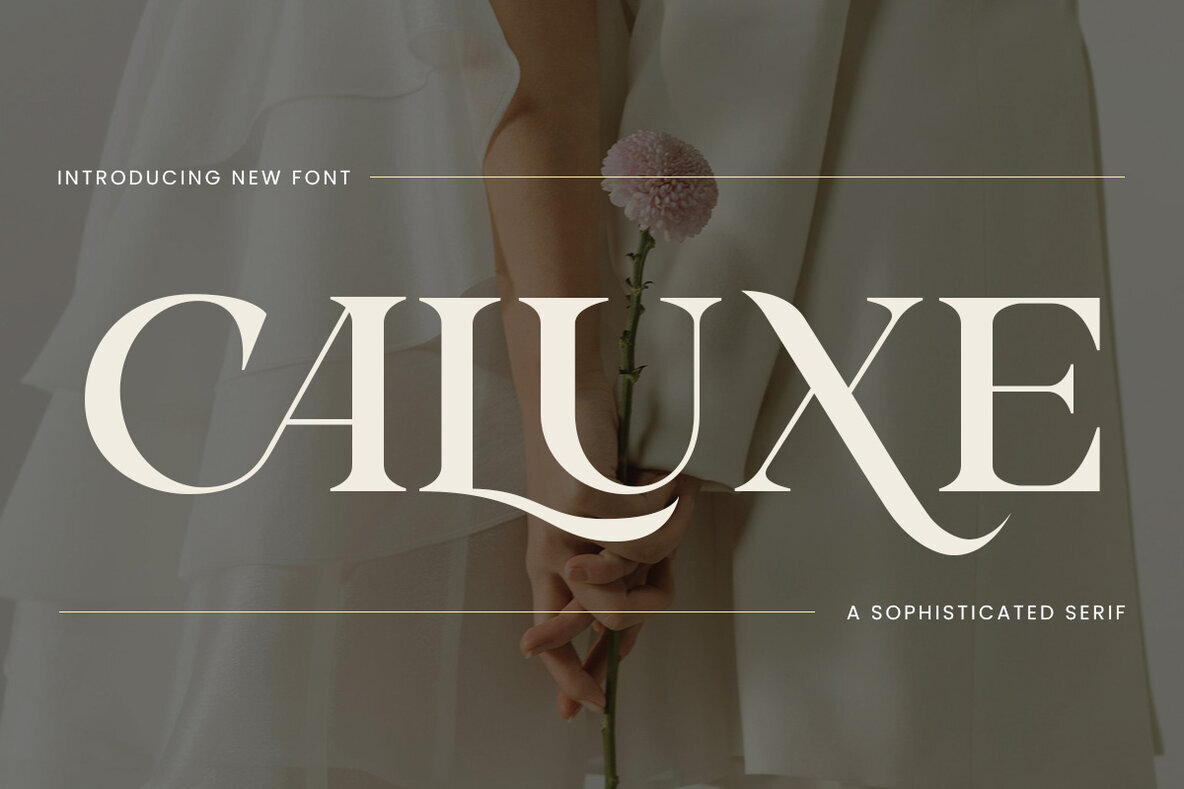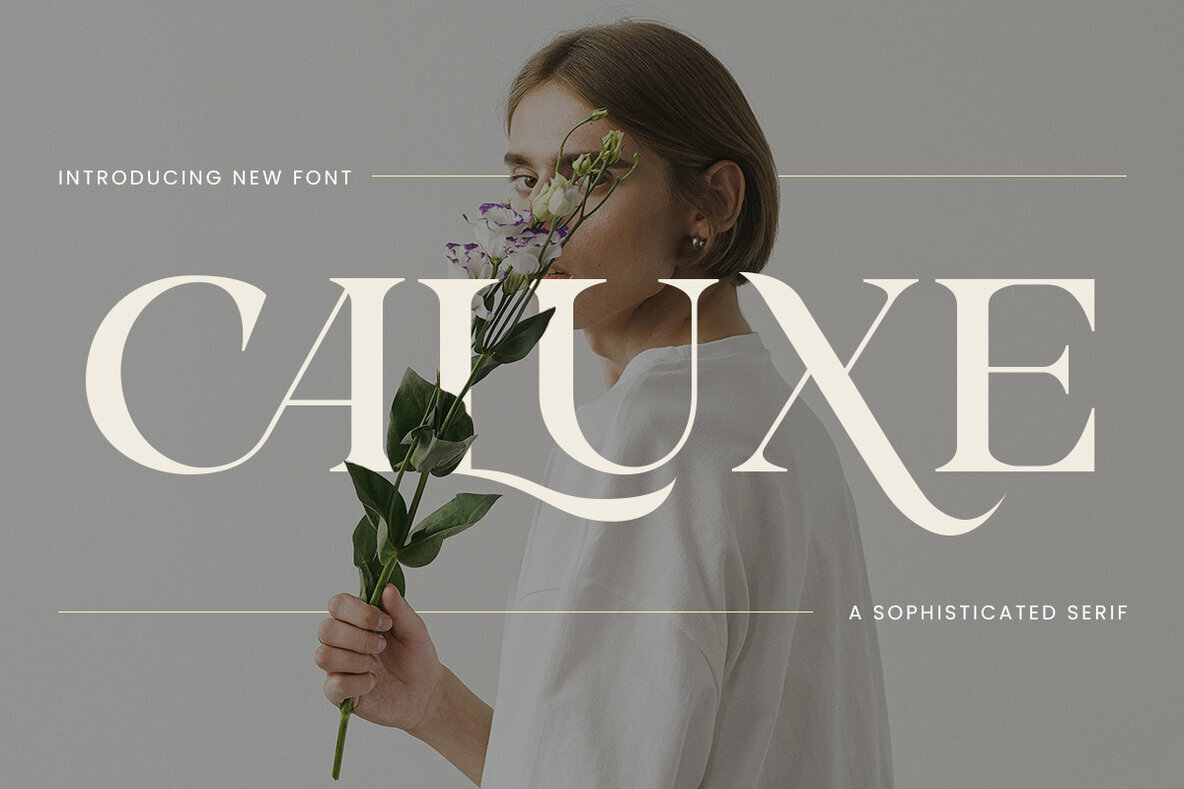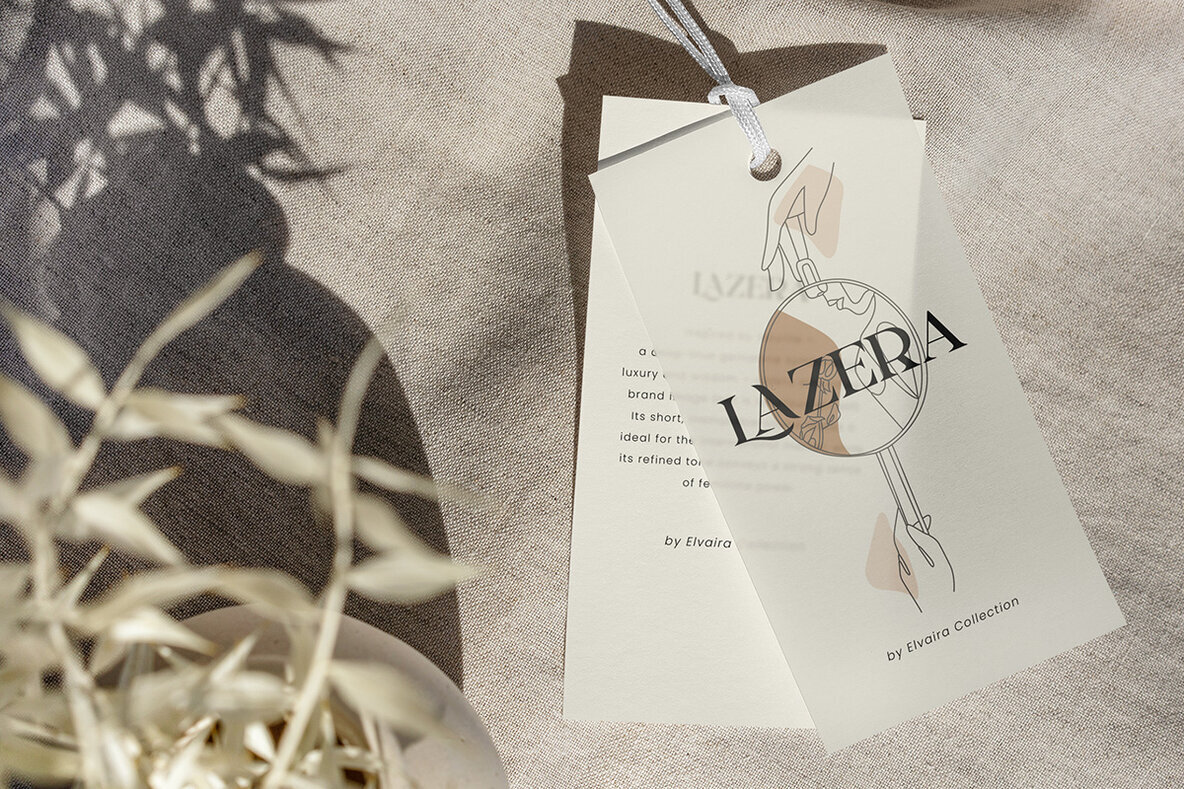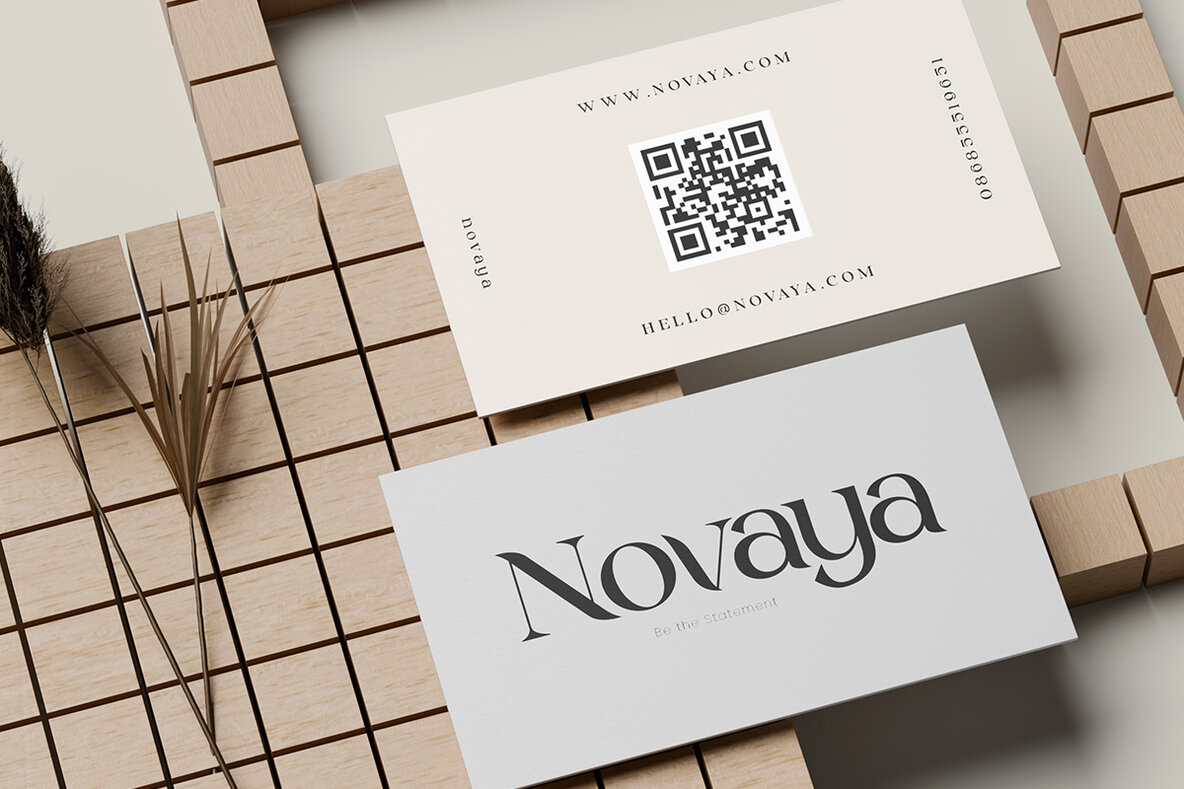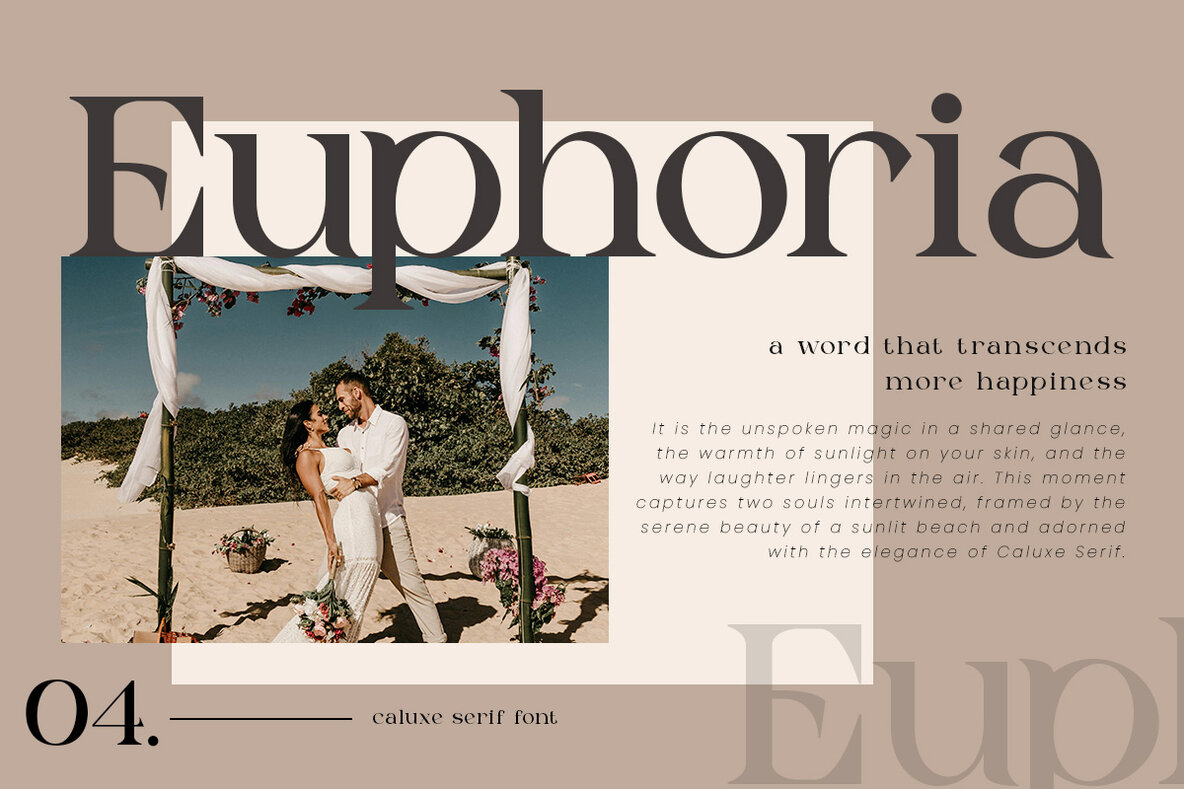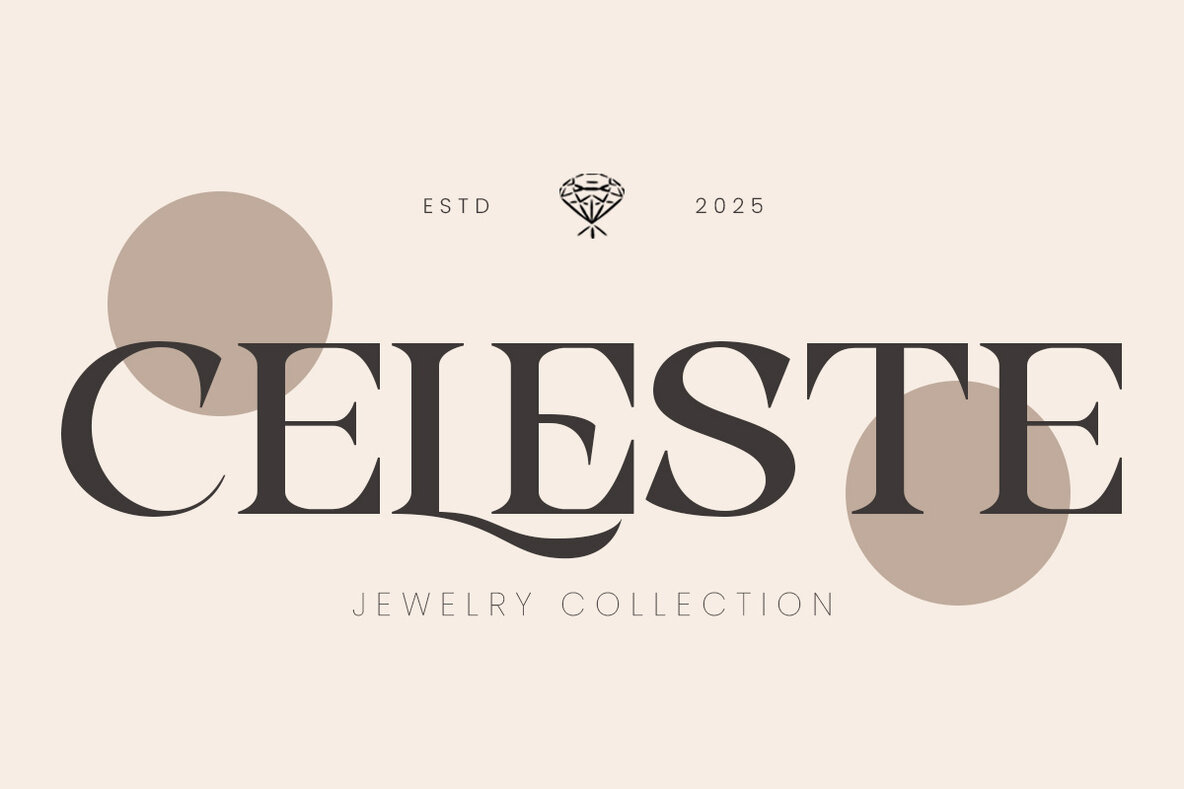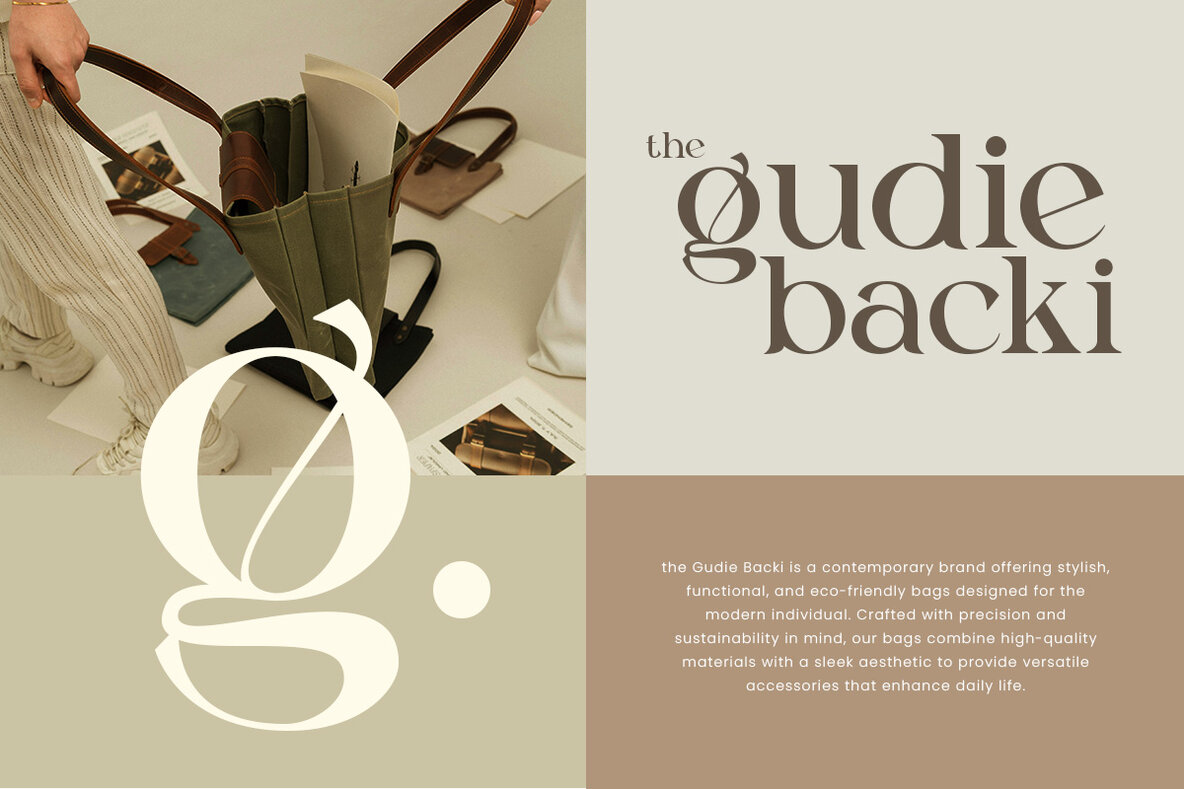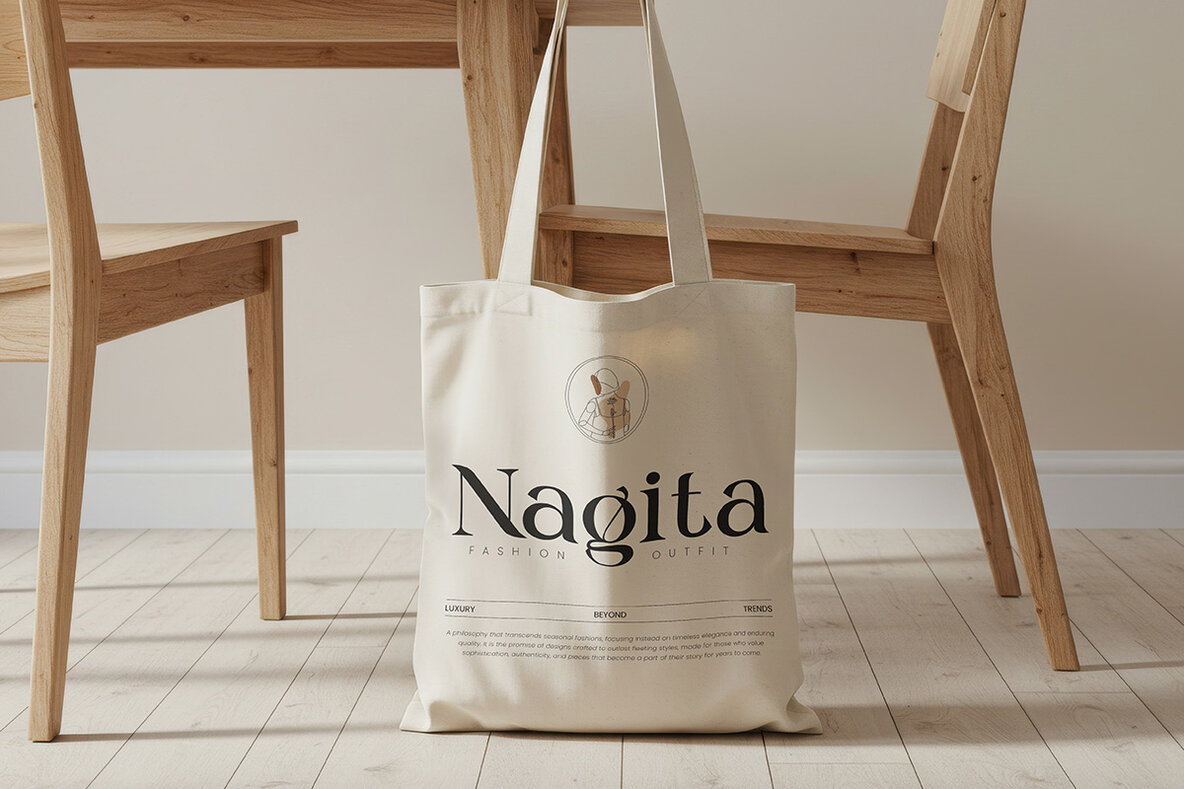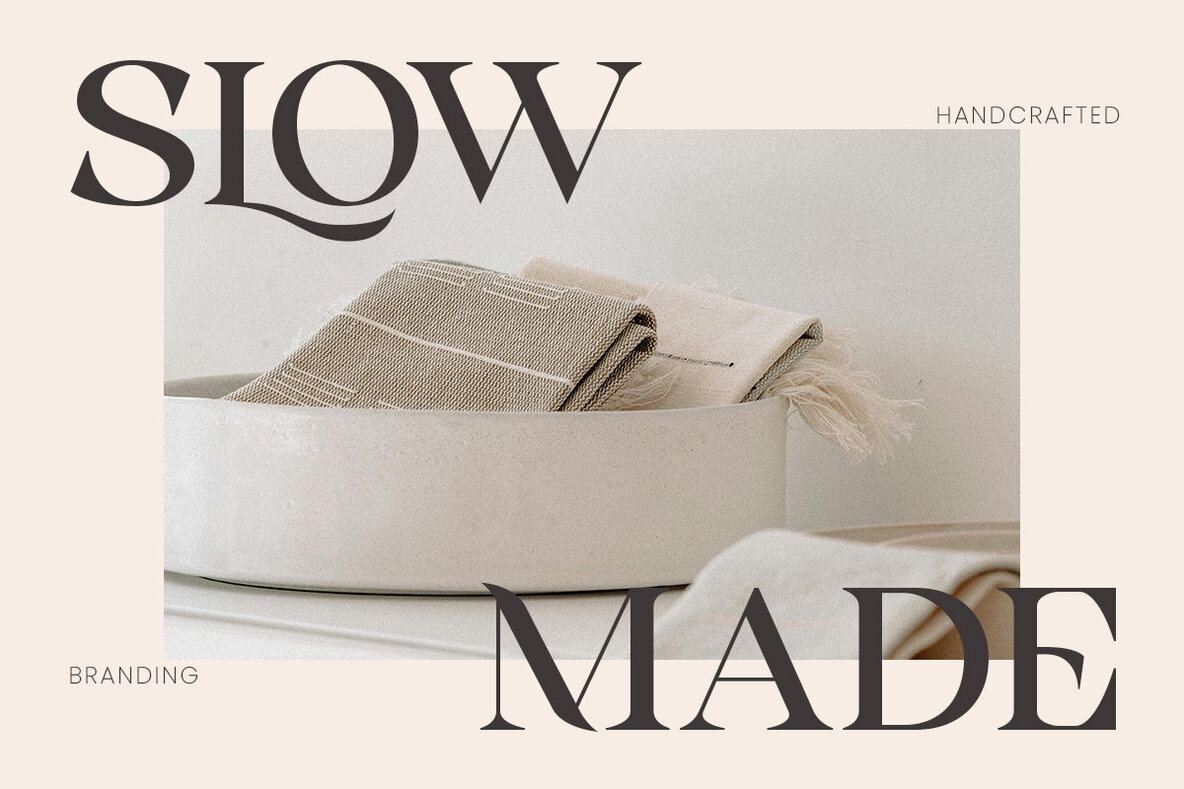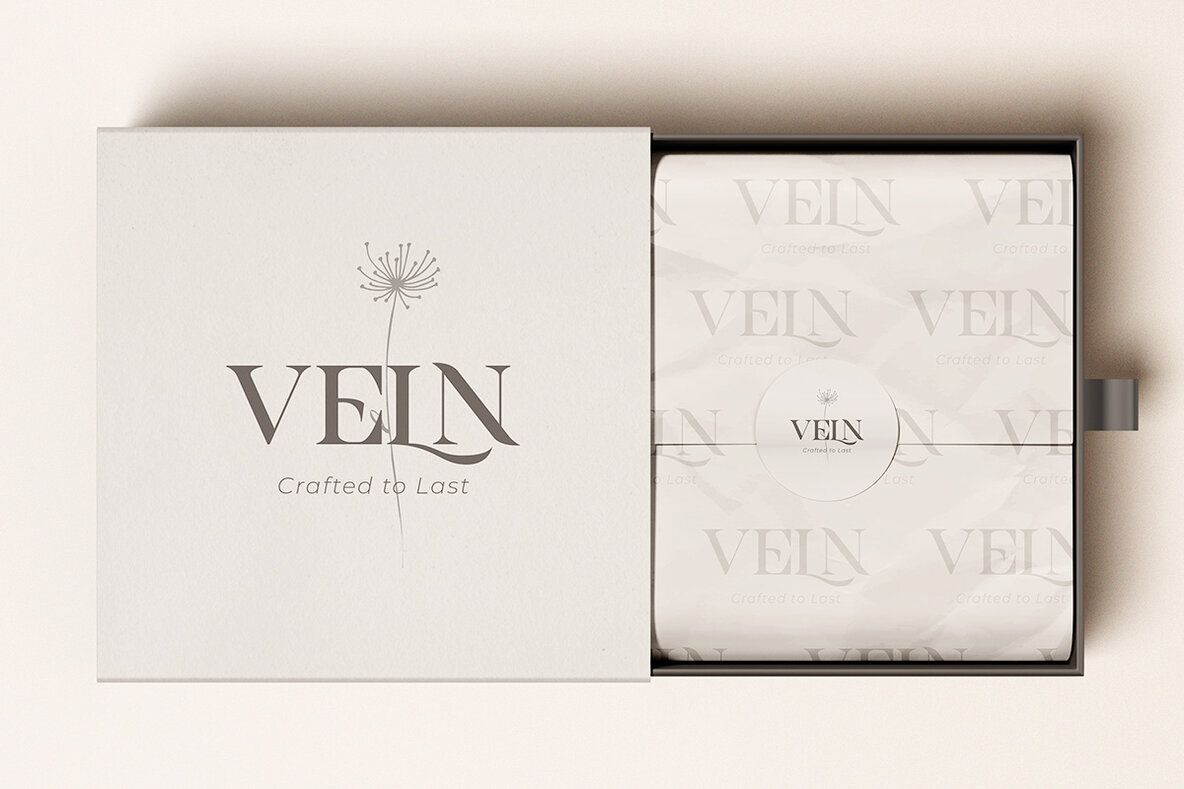
Caluxe Font
Caluxe Regular
Introducing Caluxe, a modern luxury serif font designed to embody sophistication and bold elegance. Its refined letterforms and graceful curves offer a timeless charm, making it ideal for designers eager to infuse their projects with class. Caluxe is more than just a serif; it showcases luxury and modern artistry through sharp contrasts, smooth kerning, and elegant strokes that blend strength with sophistication. Each letter is meticulously crafted to maintain visual harmony, ensuring high flexibility for large displays and fine text. Caluxe excels in diverse applications: from high-end branding and editorial layouts to adapting to current digital design trends without compromising readability. This font is your go-to for luxury brand logos, wedding stationery, fashion magazines, product packaging, and social media design, providing a polished and professional finish. Ideal for creatives who appreciate detail and modern elegance, Caluxe is ready to enhance your design vision with the luxury it deserves.Caluxe: The Epitome of Modern Luxury Serif